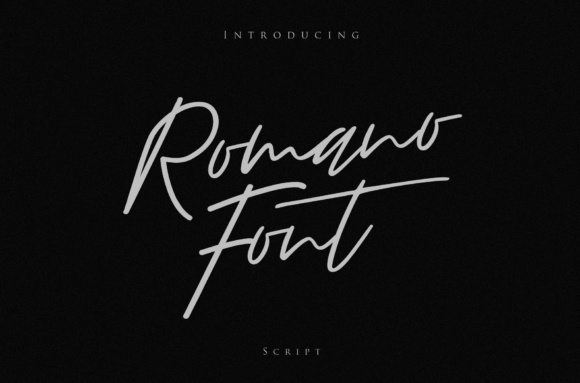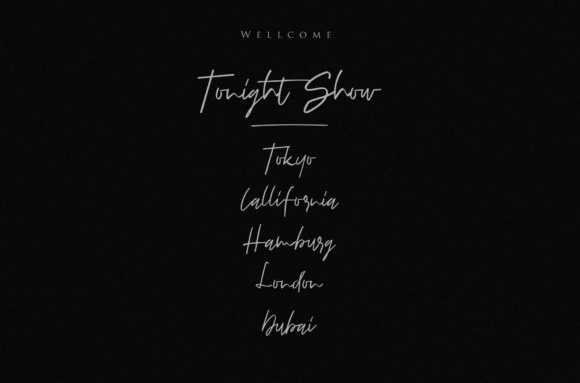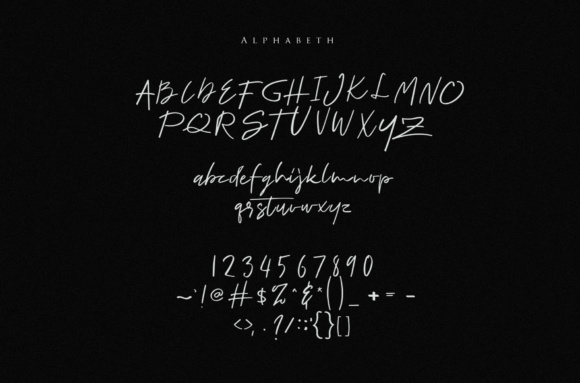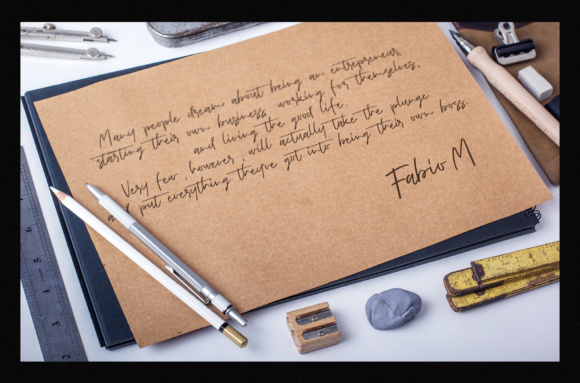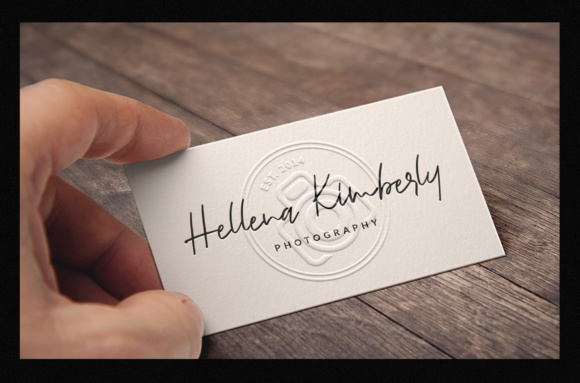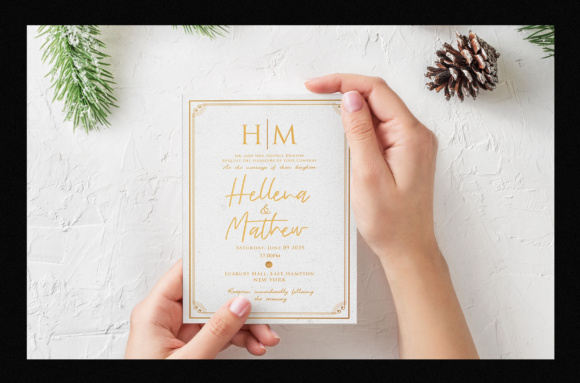
HomeScript FontsRomano Font Script Fonts Romano Font FacebookXPinterestWhatsApp Romano Font Poster 2 Romano Font Poster 3 Romano Font Poster 4 Romano Font Poster 5 Romano Font Poster 6 About Romano Font Romano is a signature font script with stylish movements. It has a perfect blend of feminine and masculine. DOWNLOAD ON CREATIVE FABRICAThis font is sold and delivered by Creative Fabrica. Font Canyon may earn a commission if you buy through this link. People also explored Bastline Kalisya Twisher Font Rinjani Font Megalia Font Font Tartilla Font Larianti Monoline Font Calligraphy Font Souffle Font Dever 383 0 TagsRomano Font Previous articleSalomon FontNext articleWisethink Font LEAVE A REPLY Cancel reply Comment: Please enter your comment! Name:* Please enter your name here Email:* You have entered an incorrect email address! Please enter your email address here Website: Save my name, email, and website in this browser for the next time I comment. Personal Use Free Deftone Personal Use Free Read more about this font Sushi Day Personal Use Free Read more about this font Beloved Script Personal Use Free Read more about this font Historise Personal Use Free Read more about this font BLOG Fonts That Capture the Spirit of New York City New York City is more than just a place—it’s an experience, a rhythm, a visual language... Transform Your Website: Elevate Your Typography with 7 Best Web Font Generators How to Install and Use Fonts on Windows, macOS, and Web Projects Top 10 Handwritten Fonts That Elevate Your Designs